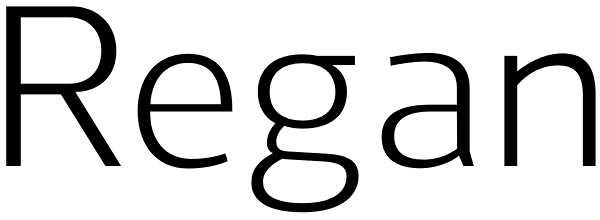
Regan
A finely crafted sans serif typeface with an uncomplicated appearance. Soft curves are mixed with minimal angles to create a readable font ideally suited for identity, editorial and online uses. Details include 10 weights with italics, 540...